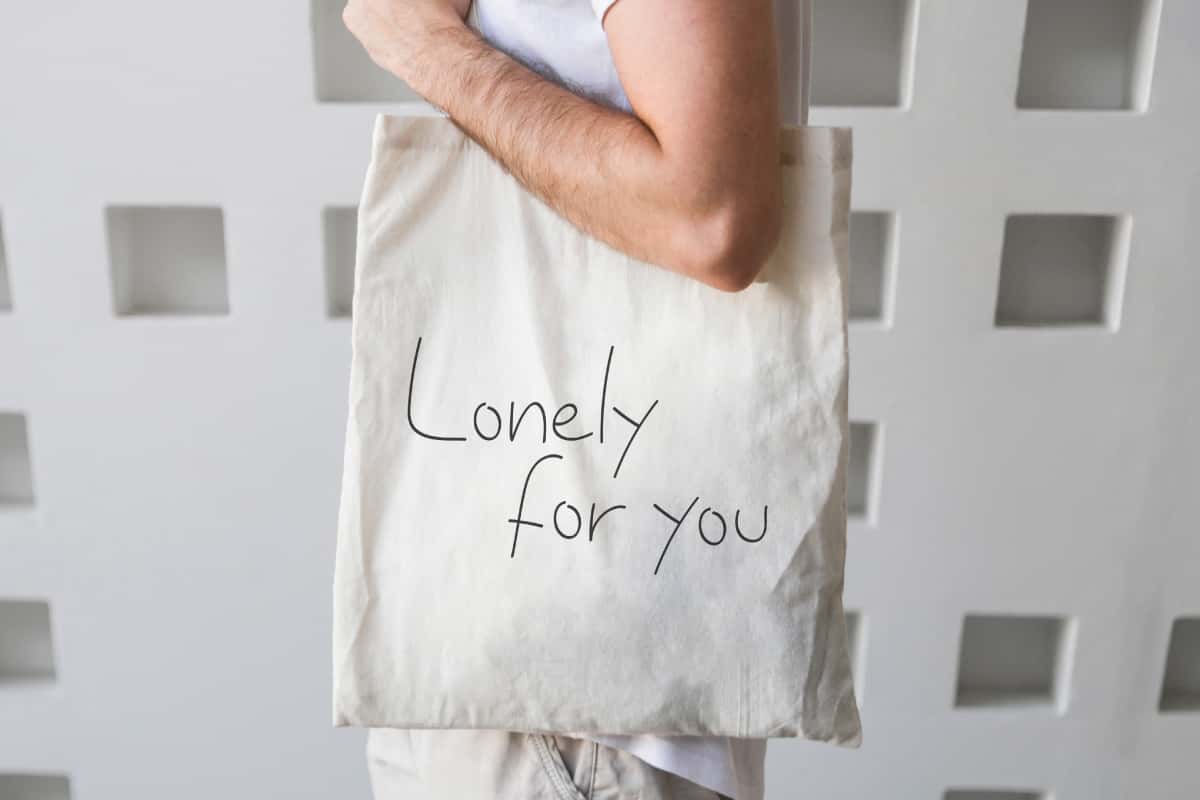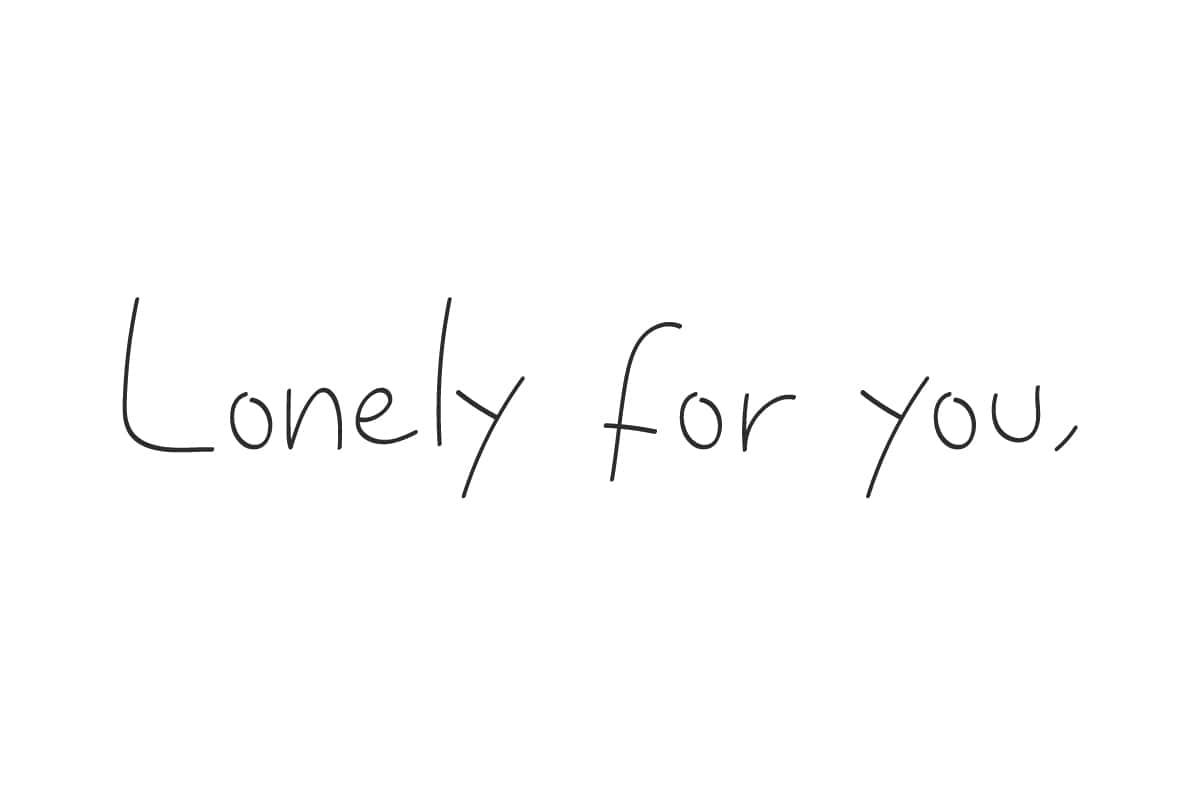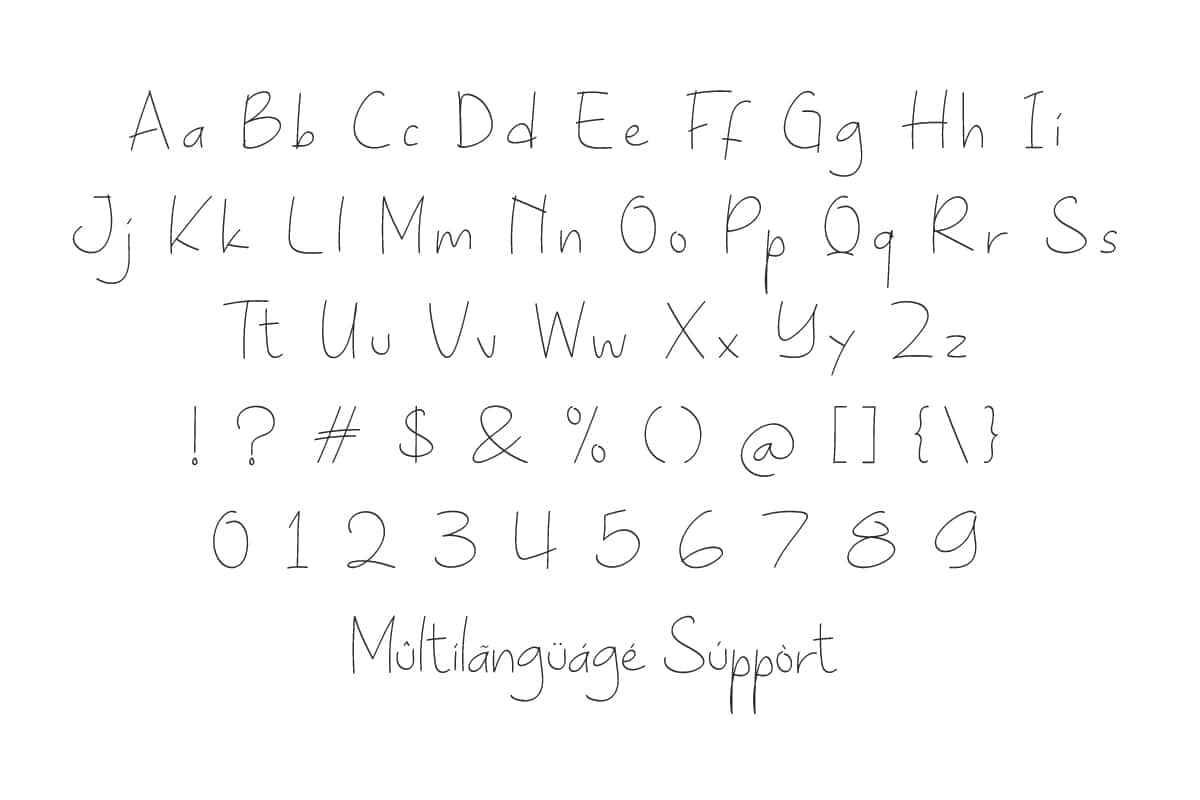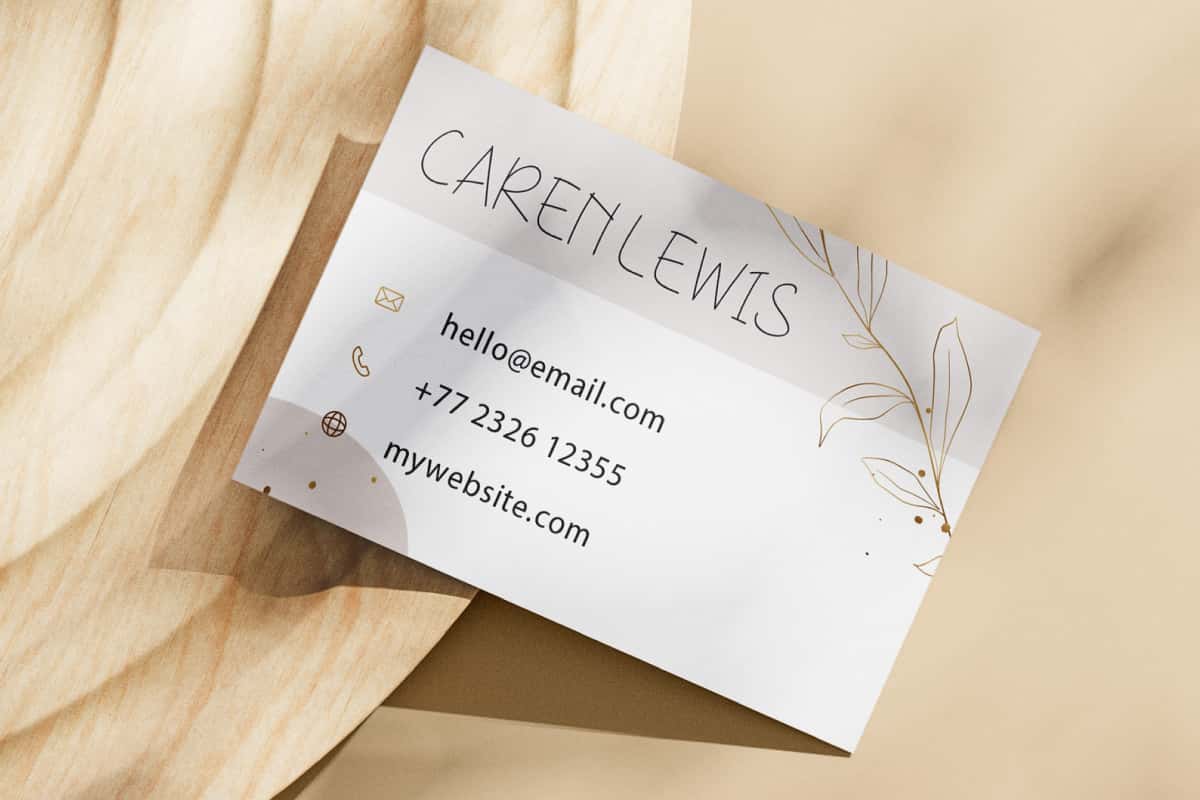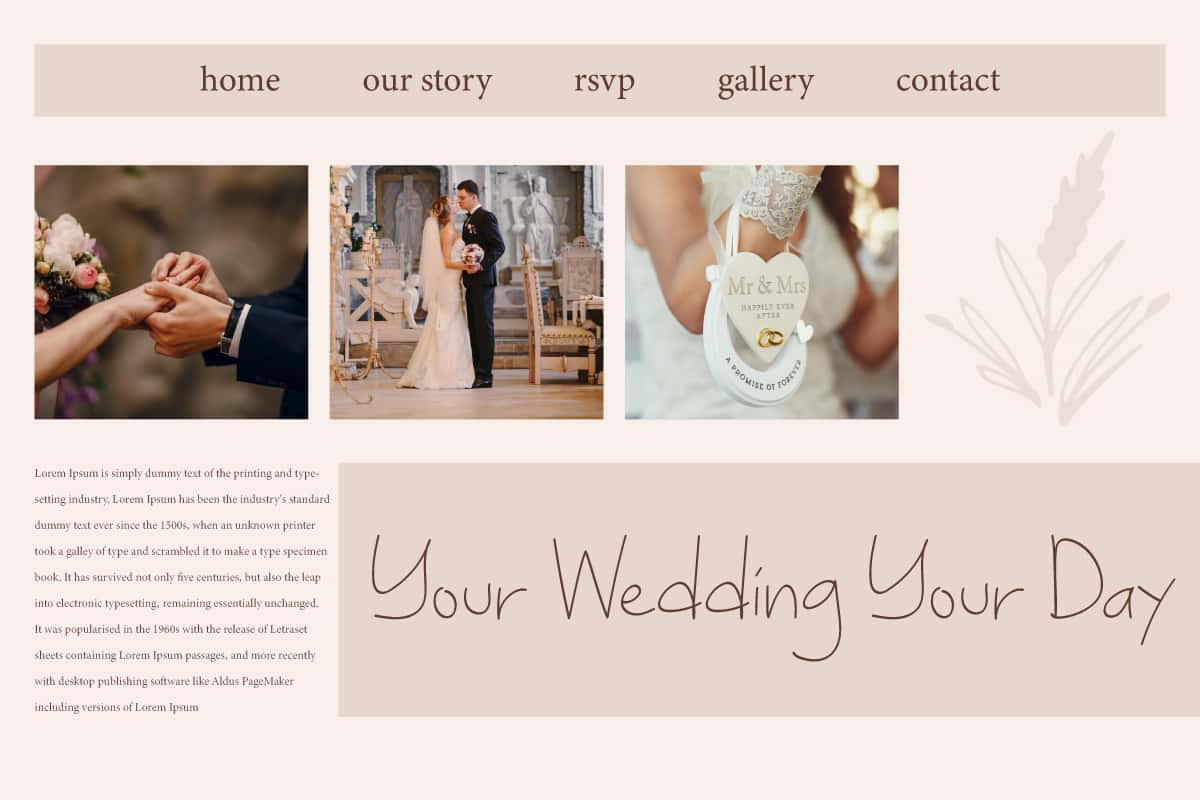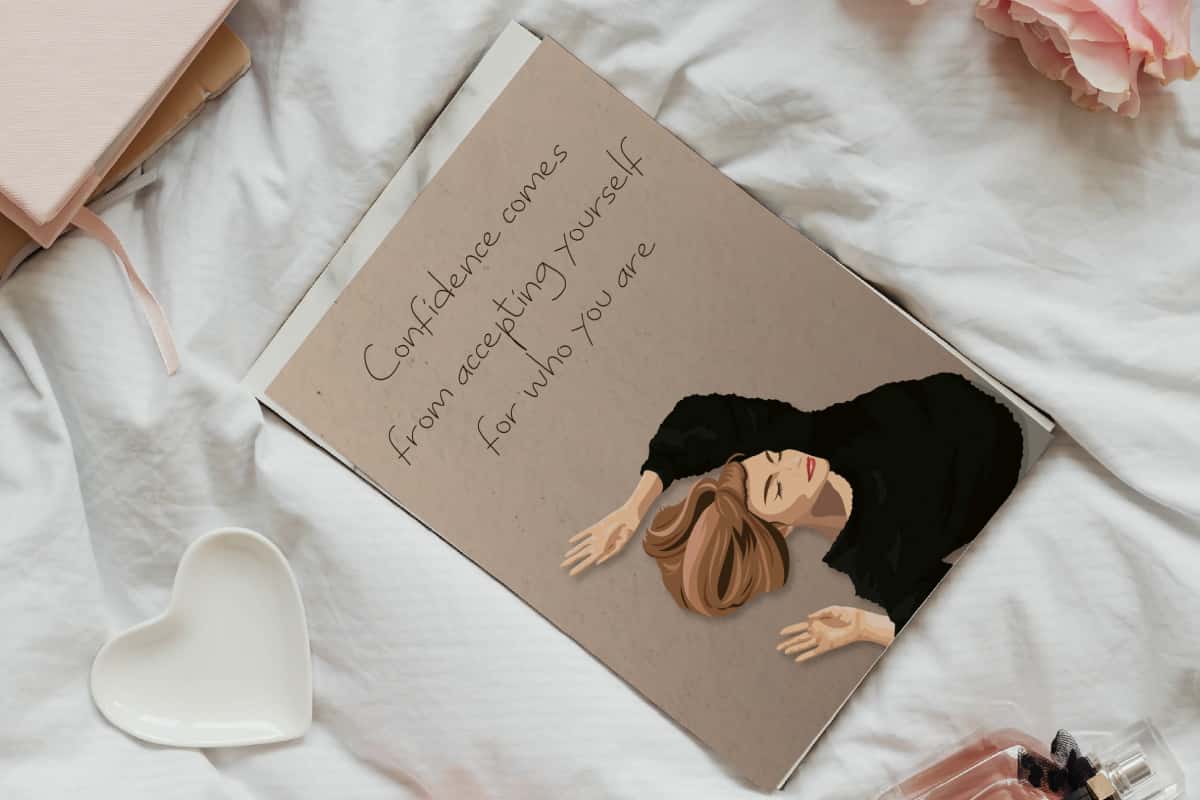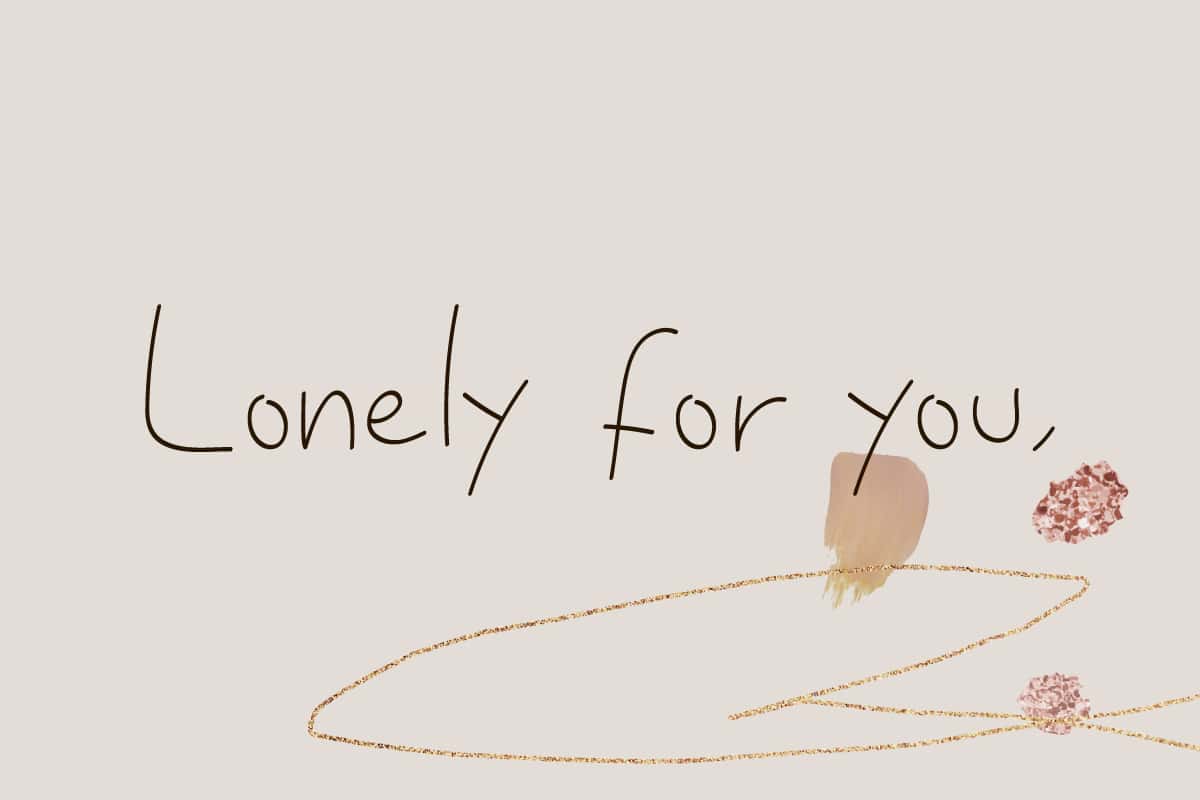
Lonely For You Font is a gracefully thin and smooth handwritten font, perfectly blending classic charm with a modern sensibility.
Lonely For You Font is a gracefully thin and smooth handwritten font, perfectly blending classic charm with a modern sensibility. Its perfect for blogs, brochure, covers, flyer, greeting card, headers, mockup, packaging, product label, quotes, shopping bag, stationery, title, website, wedding invitations, and more.
Lonely For You Font includes a complete set of Basic Uppercase and Lowercase Characters, Numbers, Punctuation and Symbols. It offers a personal touch and elegant design, embodying the authentic feel of an original handmade creation! Perfect for advertising, author and writer, beauty product, cosmetic, fashion, florist, hair salons, handicraft, jewelry, journaling, restaurant, and much more.